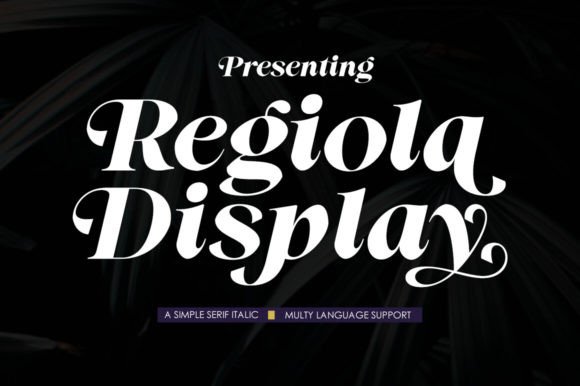
Introducing Regiola Display Font: The Epitome of Luxury and Sophistication
In the world of typography, fonts play a crucial role in conveying the tone and personality of a brand or design. For high-end branding and editorial projects, a font that exudes luxury, sophistication, and elegance is essential. This is where Regiola Display Font comes into play. Regiola Display is a luxurious serif font that epitomizes sophistication and opulence, making it the perfect choice for designers and brands looking to elevate their designs.
Key Features of Regiola Display Font
- Regal Serifs: Regiola Display’s serifs are designed to evoke a sense of luxury and refinement. The font’s serifs are carefully crafted to add a touch of sophistication to any design.
- Graceful Curves: The font’s curves are smooth and elegant, adding to its overall luxurious feel. The curves are designed to flow seamlessly, creating a sense of continuity and harmony.
- Timeless Elegance: Regiola Display’s classic design ensures that it remains timeless, making it perfect for high-end branding and editorial projects that require a sense of luxury and sophistication.
Design Applications for Regiola Display Font
Regiola Display Font is perfect for a variety of design applications, including:
- High-End Branding: Use Regiola Display to create luxurious brand identities that exude sophistication and elegance.
- Editorial Projects: Regiola Display is ideal for editorial projects such as magazines, newspapers, and books that require a touch of luxury and refinement.
- Advertising: The font’s luxurious feel makes it perfect for advertising campaigns that require a high-end look and feel.
- Packaging: Use Regiola Display to create luxurious packaging designs that stand out on store shelves.
Typography Tips for Using Regiola Display Font
To get the most out of Regiola Display Font, follow these typography tips:
- Use it sparingly: Regiola Display is a luxurious font that should be used sparingly to avoid overwhelming the design.
- Pair it with a sans-serif font: Pair Regiola Display with a sans-serif font to create a beautiful contrast that adds depth to the design.
- Experiment with font sizes: Experiment with different font sizes to create visual hierarchy and add emphasis to key elements.
The Benefits of Using Regiola Display Font
Regiola Display Font offers a range of benefits, including:
- Instant Luxury: Regiola Display adds an instant touch of luxury to any design, making it perfect for high-end branding and editorial projects.
- Timeless Elegance: The font’s classic design ensures that it remains timeless, making it a great investment for designers and brands.
- Versatility: Regiola Display can be used in a variety of design applications, from branding and editorial projects to advertising and packaging.
Design Inspiration with Regiola Display Font
Regiola Display Font is perfect for designers looking to create luxurious and sophisticated designs. Here are some design inspiration ideas to get you started:
- Luxury Editorial Spread: Create a luxurious editorial spread using Regiola Display to showcase high-end fashion or lifestyle products.
- High-End Brand Identity: Use Regiola Display to create a luxurious brand identity that exudes sophistication and elegance.
- Luxury Packaging: Design luxurious packaging using Regiola Display to create a premium look and feel.
Regiola Display Font is a luxurious serif font that epitomizes sophistication and opulence. Its regal serifs and graceful curves exude timeless elegance, making it perfect for high-end branding and editorial projects. With its versatility, timeless elegance, and instant luxury feel, Regiola Display is a great investment for designers and brands looking to elevate their designs.